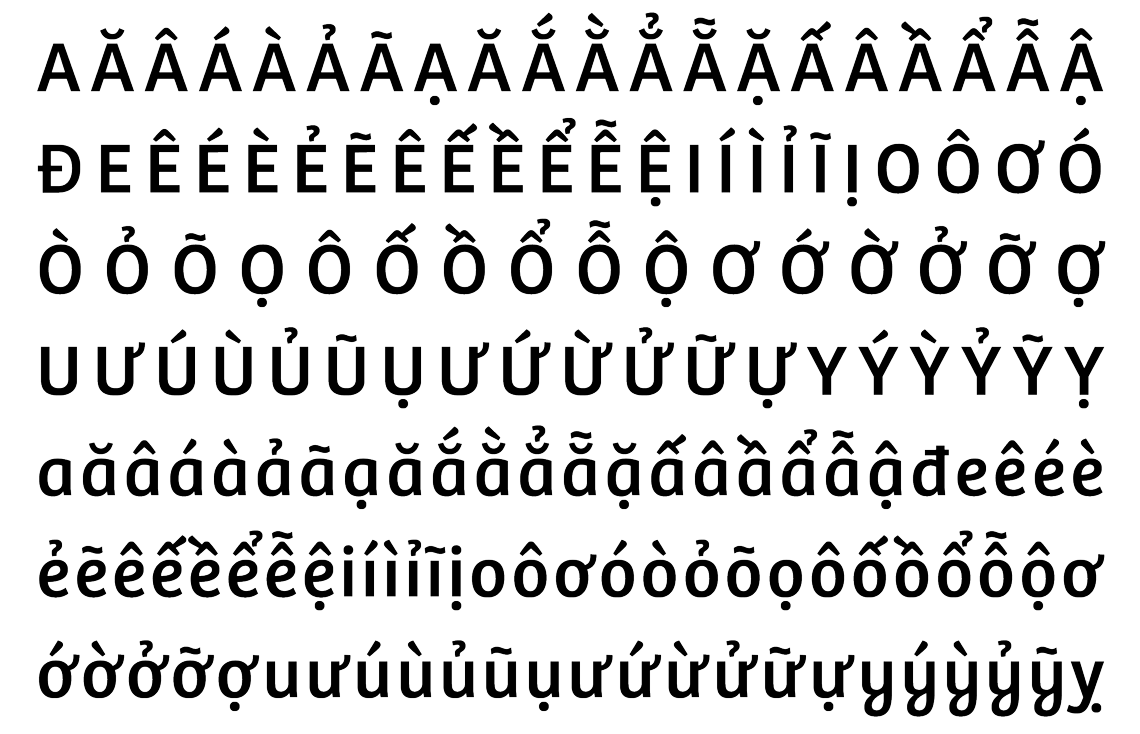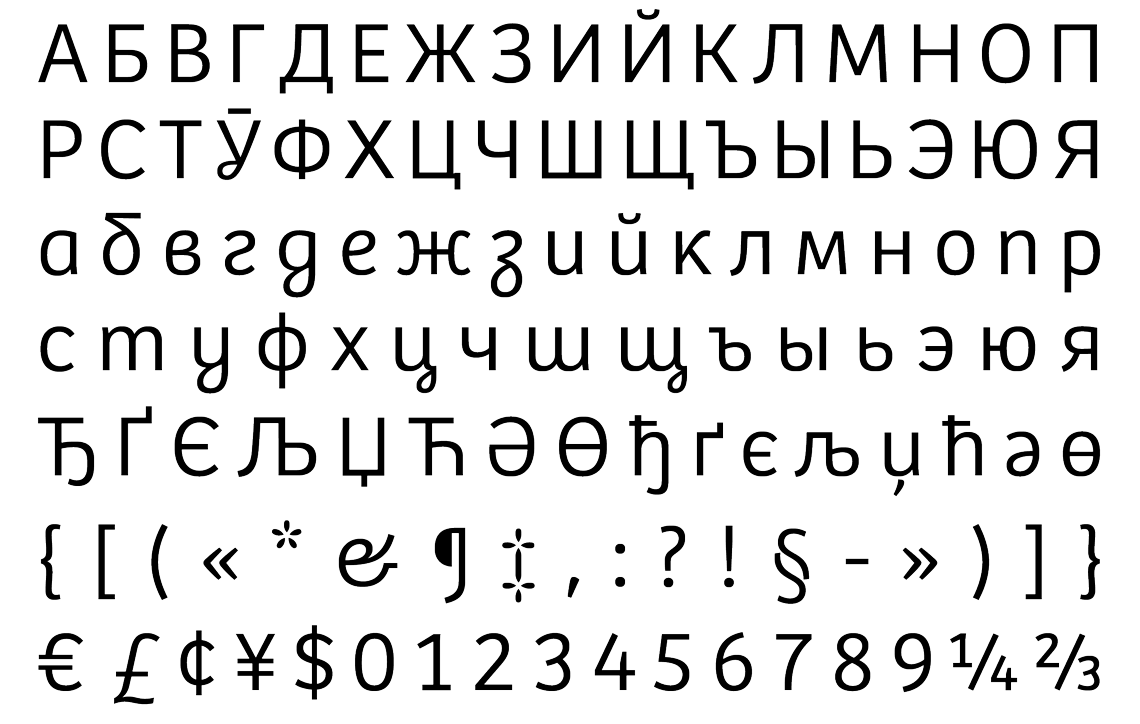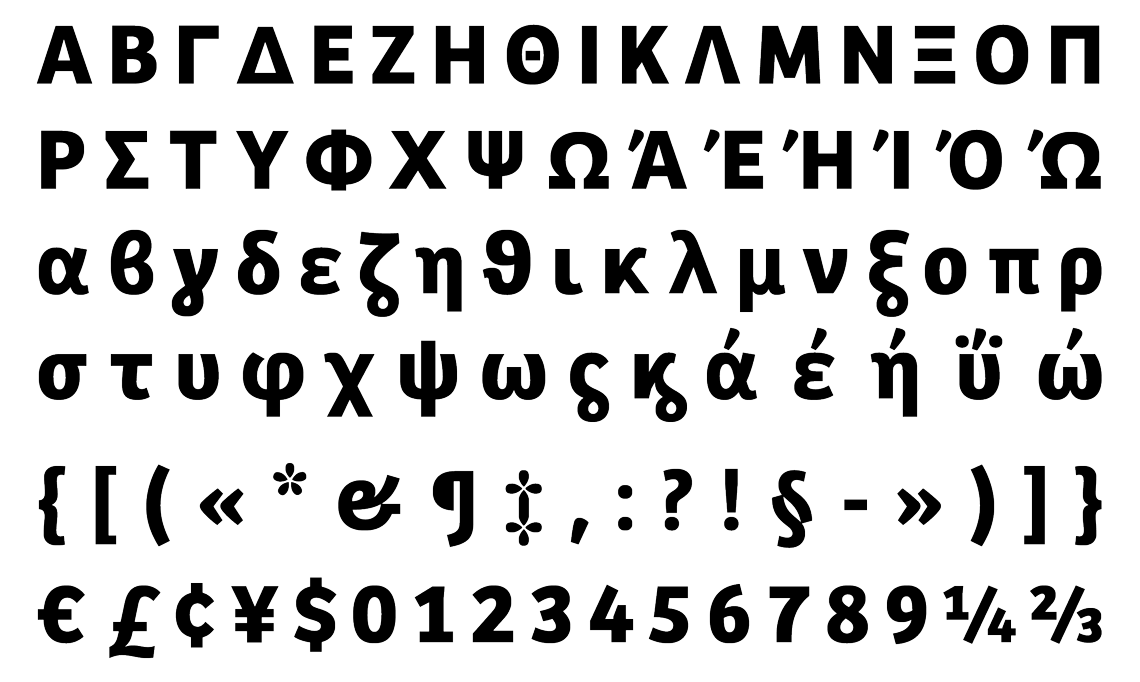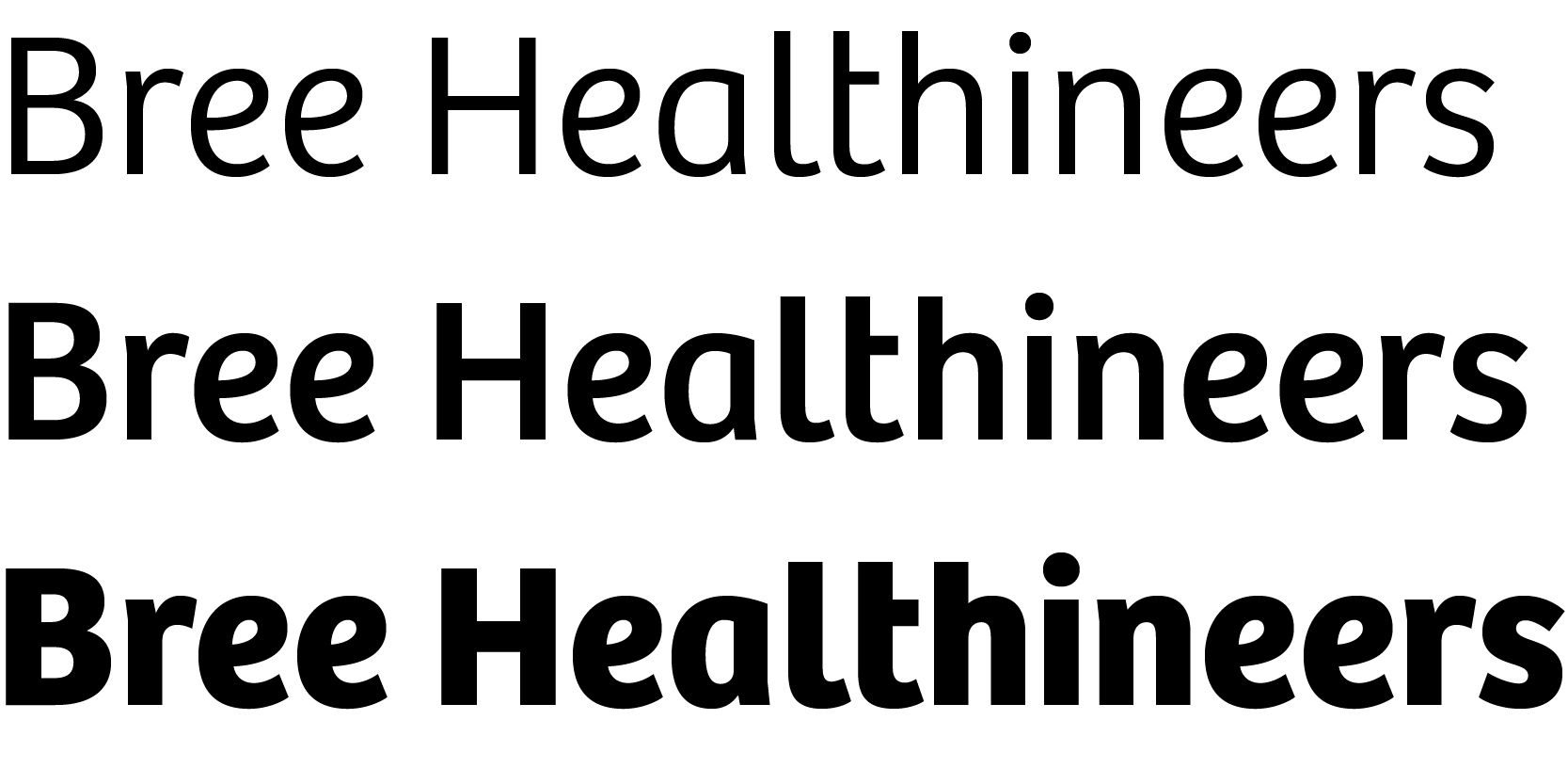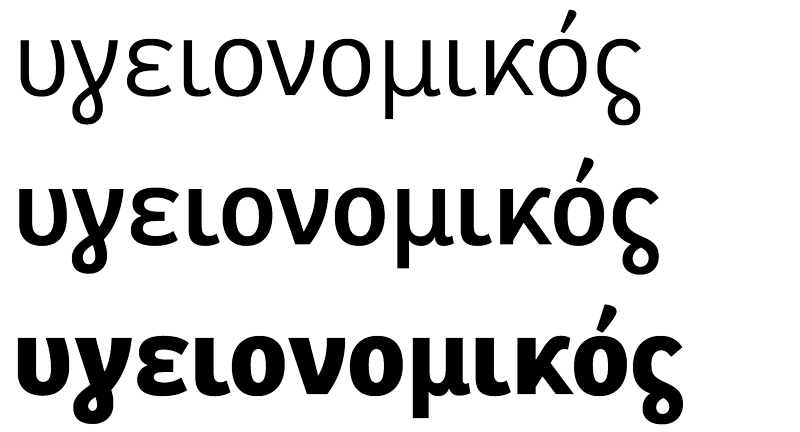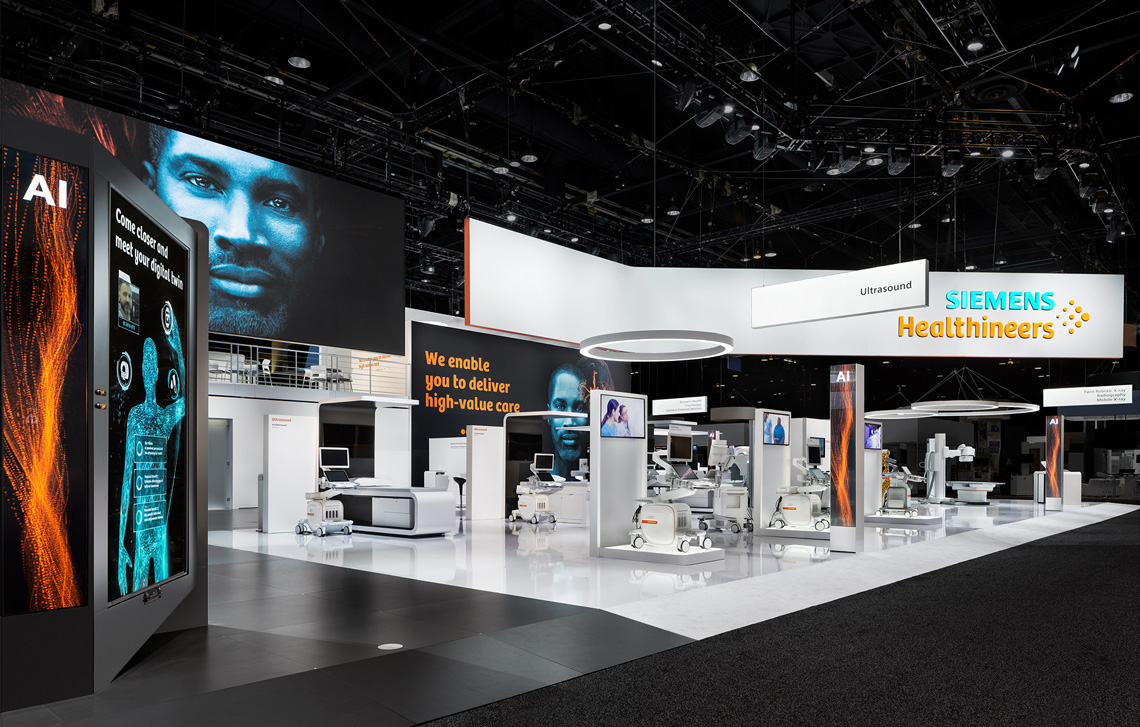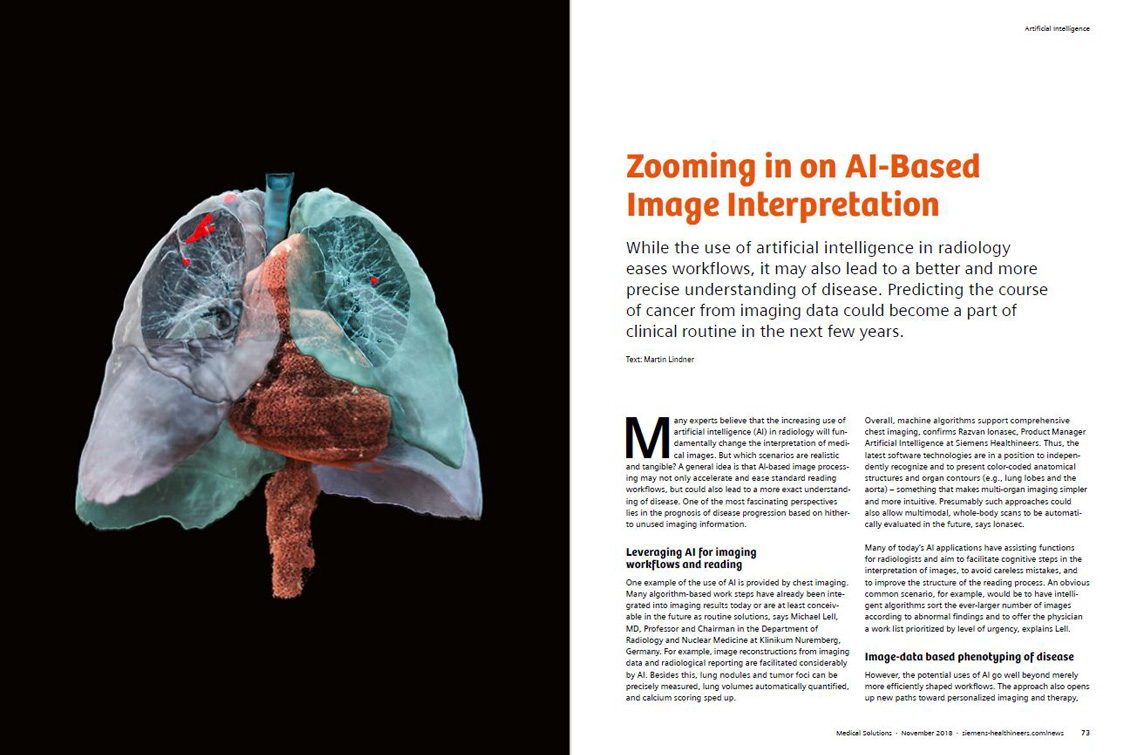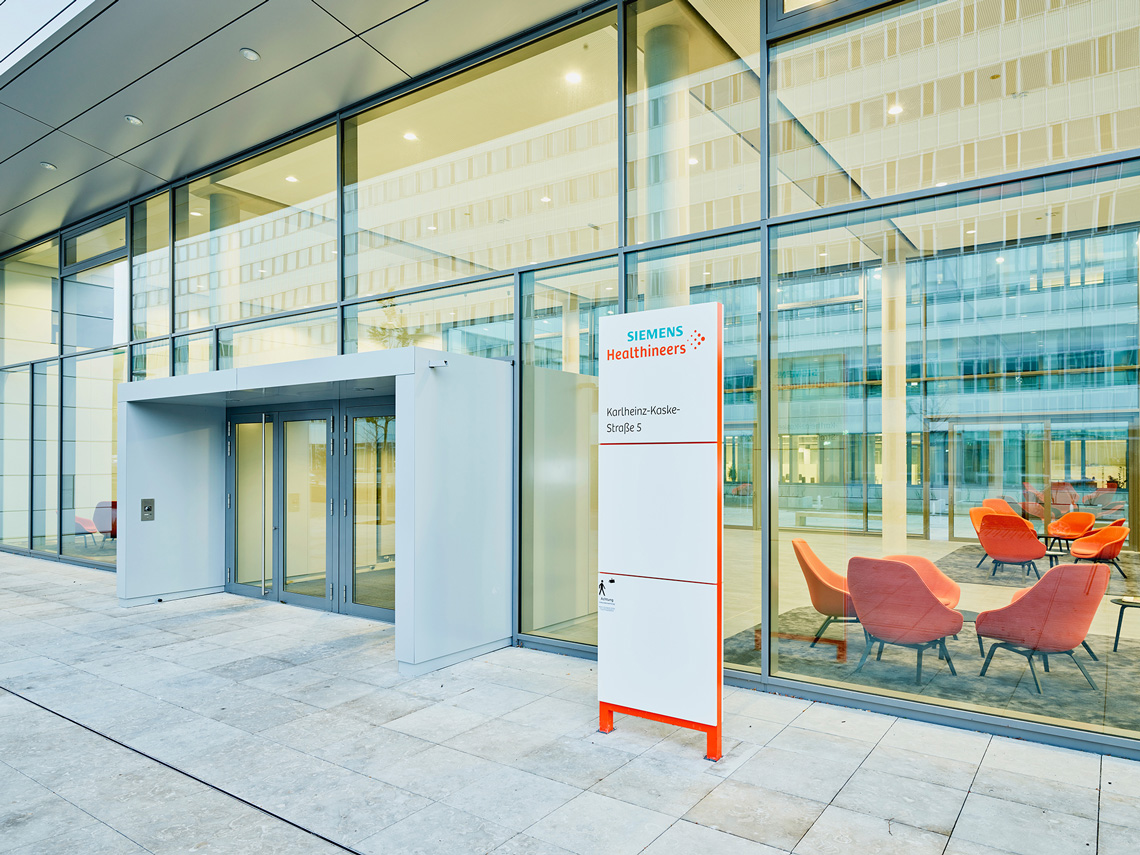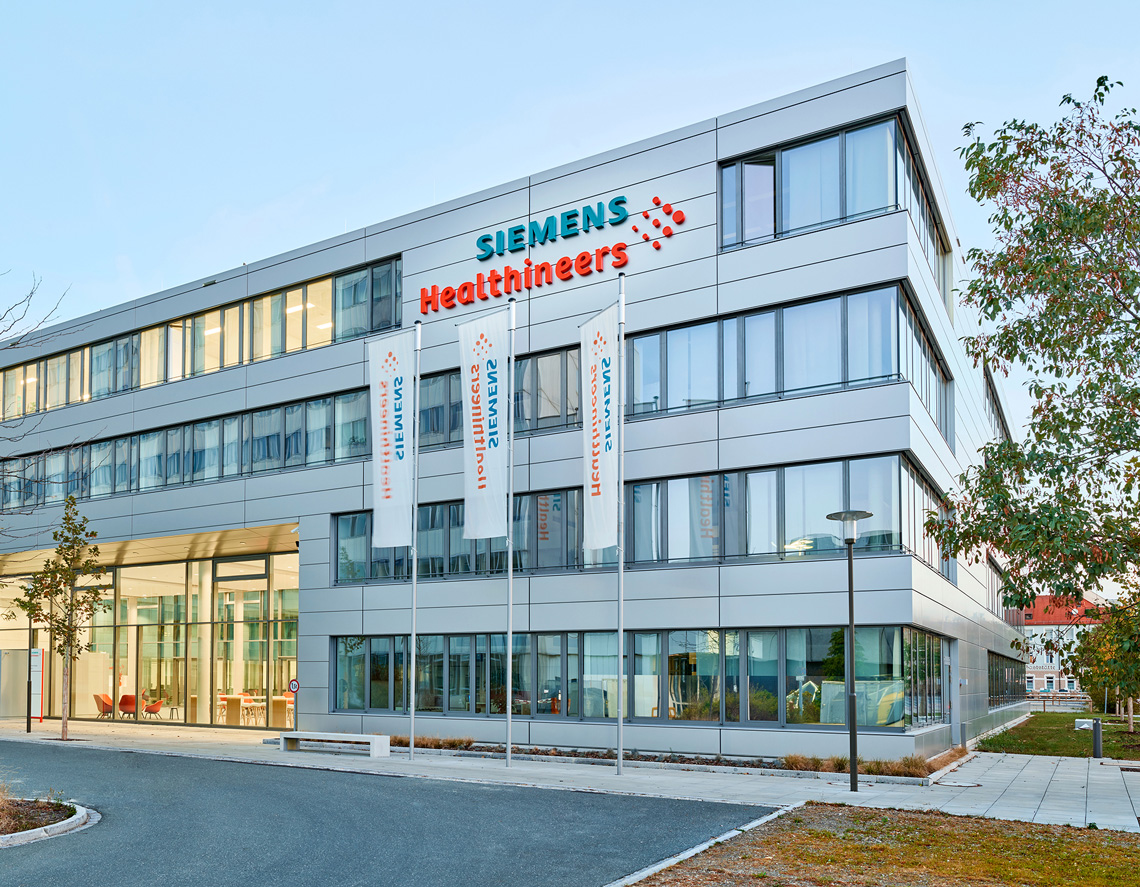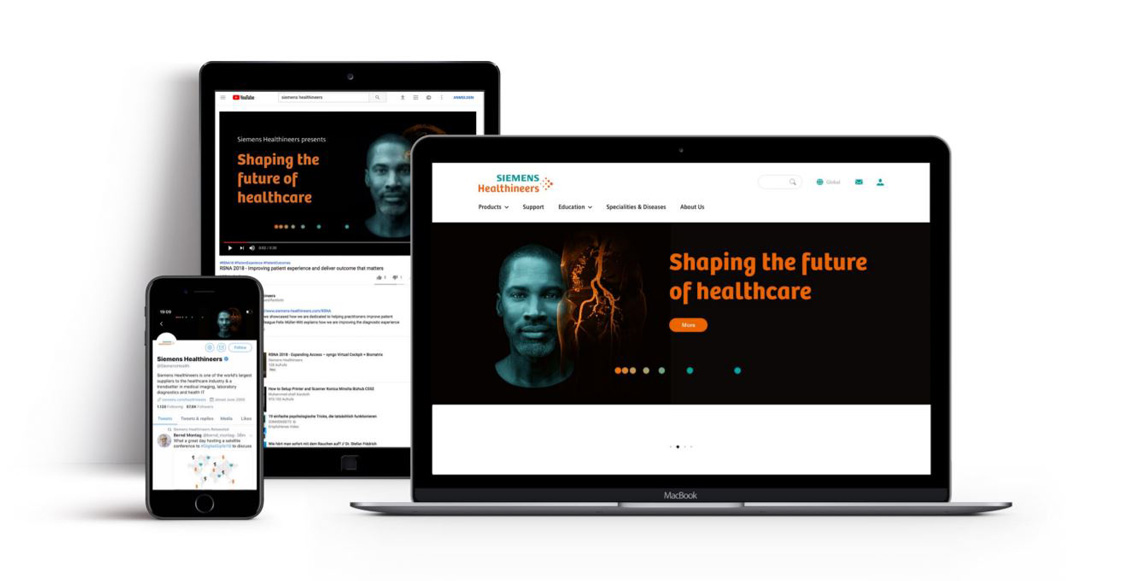
Siemens Healthineers
The German-based industrial manufacturing company, Siemens, created a new healthcare business with a new branding concept in 2016, choosing Bree for their logotype.
Customised logotype using our typeface Bree.
The internal designer Michael Schmidt at Siemens together with external graphic designer Roger Scrooby developed the logotype consisting of three parts:
1. Siemens: the company’s heritage.
2. The word Healthineers: referring to the people working at Siemens Healthineers.
3. The dots: symbolic, connecting the two names, and showing forward movement. The dots represent all that Siemens Healthineers has to offer — its people, its products, its services — and their forward-looking approach.
Our upright italic typeface Bree was selected as its shapes, based on handwriting, bring a human touch while representing stability and character. As is often the case with lettering though, the letter ‘t’ was tweaked to improve the l–t–h combination within the Healthineers logotype.
Cyrillic script extension of our Bree type family.
Language extension of our Bree type family to cover Vietnamese.
Monotonic Greek script extension of our Bree type family.
Typography is one of the central shaping elements of the brand, so as a natural consequence, the Bree family was introduced as a display typeface for distinct-looking headlines, recognizable across all touchpoints of the brand’s communication materials in combination with the font Siemens Sans for body text.
The company’s press release states, “Siemens Healthineers will continue to strengthen its leading portfolio across the medical imaging and laboratory diagnostics business while adding new offerings.” Siemens Healthineers is a global company and therefore requires broad language and script coverage. TypeTogether was approached to develop a Cyrillic, a Greek, and a Vietnamese version for SH Bree.
Bree’s special upright italic style, particularly visible in such letters as ‘a e f g k v w y z’, had to be interpreted for the two other scripts in a natural and logical way. The solution developed by using formalised shapes derived from handwriting and then adapting Bree’s loops into the design where it made sense.
The three weights, Light, Regular, and Bold, also share the same stem thickness, vertical proportions, and a variety of design details, such as terminals and outstrokes. The Greek was designed by Irene Vlachou and the Cyrillic by Veronika Burian with consultation by Vera Evstafieva.
Bree Greek.
Bree Cyrillic.
Bree-SH has been now been implemented in the Siemens Healthineers Brand Expression where it mainly appears in headlines on websites, communication collaterals, graphics, magazines, trade shows, events, and as a product tag on products.